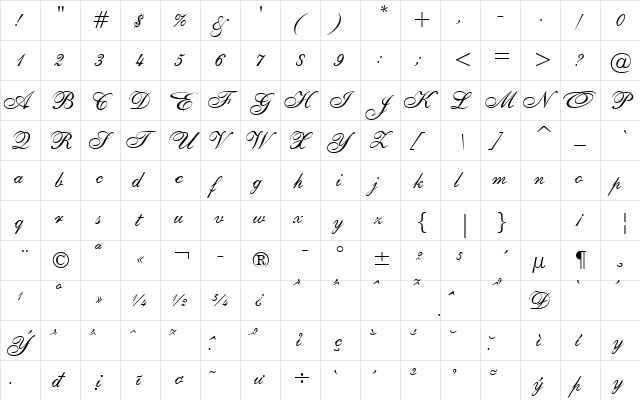
VNI-ShellaL Regular
Design Context for VNI-ShellaL Typeface
VNI-ShellaL is a composed and adaptable typeface that performs quietly and consistently across a wide range of design contexts.